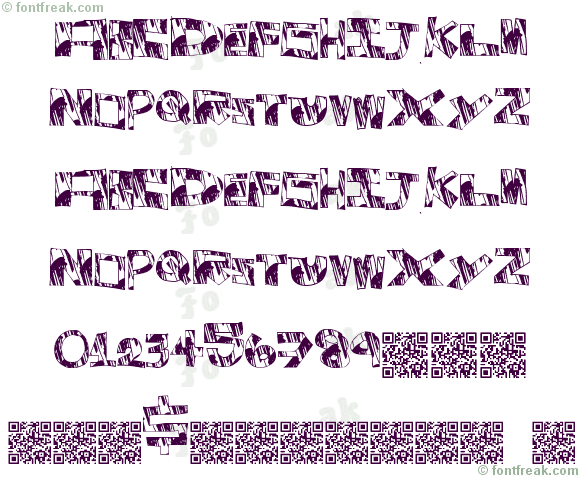
SpecialBrand
About SpecialBrand
SpecialBrand by XEROGRAPHER FONTS is a unique display font that captures attention with its distinctive and artistic flair. This font features a bold, irregular style that showcases a mix of sharp edges and playful lines, creating an eye-catching visual appeal. The stroke weight varies throughout, adding an organic feel to each letter. The contrast between thicker and thinner strokes enhances its dynamic presence, while the spacing is slightly varied, contributing to its whimsical character. Decorative elements are subtly integrated, which further emphasizes its creative and unconventional nature.
Best suited for creative applications, the SpecialBrand font shines in contexts such as movie posters, where its boldness can convey drama and excitement. It also works well for restaurant menus that aim to create a casual yet artistic atmosphere, appealing to a trendy clientele. Additionally, this font is perfect for event flyers and invitations, especially for informal gatherings or celebrations, where a fun and engaging aesthetic is desired. Graphic designers, small business owners, and content creators will find this font particularly useful, as it aligns with modern branding trends that prioritize uniqueness and personality.
What makes the SpecialBrand font stand out is its ability to blend artistic expression with functionality. It captures the essence of creativity while remaining versatile enough for various design applications. With its freeware licensing, the SpecialBrand font free download offers an accessible opportunity for users to enhance their projects with a distinct touch. This font not only adds character to any design but also embodies a spirit of innovation that resonates with contemporary audiences. Embrace the uniqueness of SpecialBrand to elevate your creative endeavors.